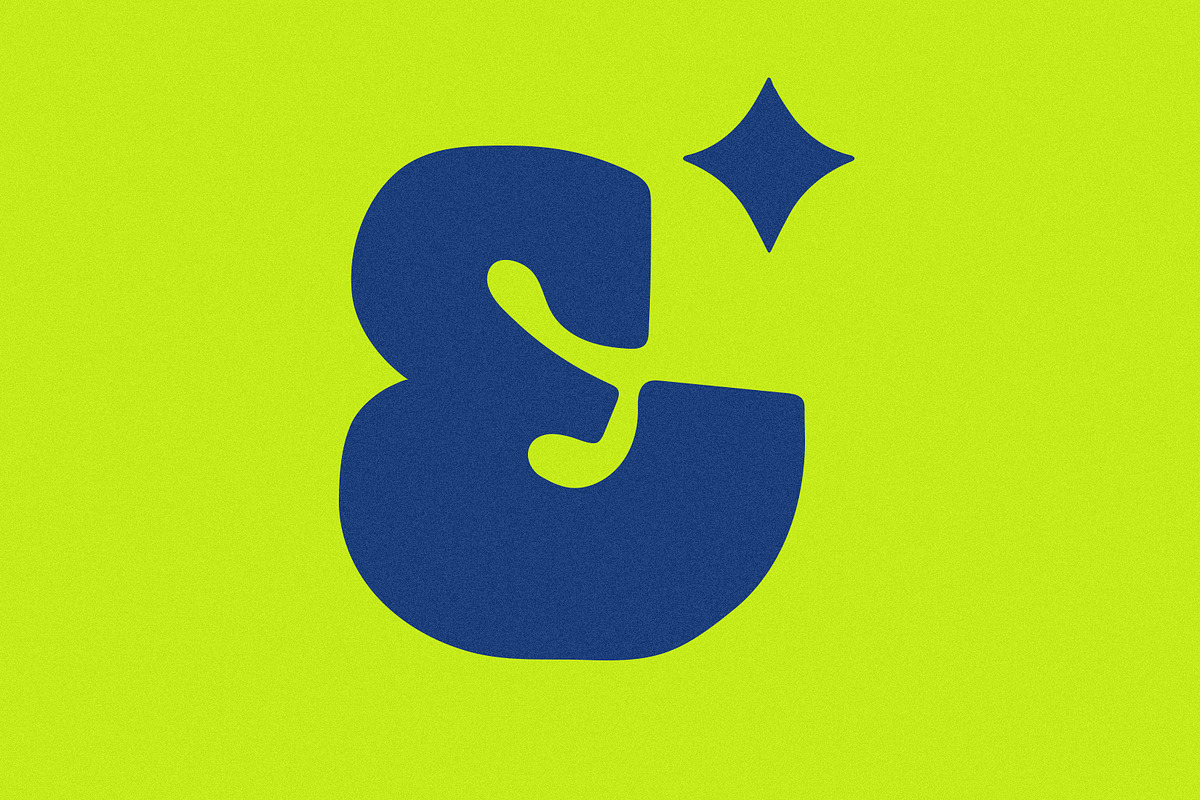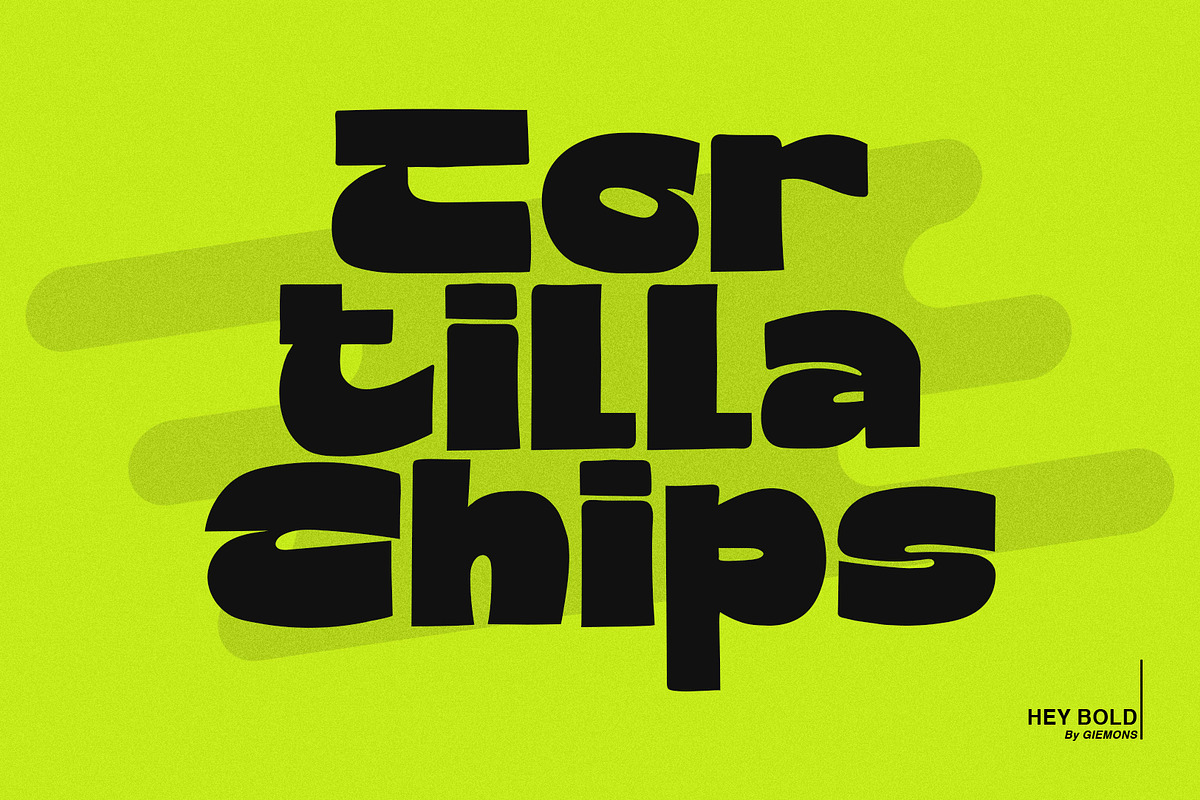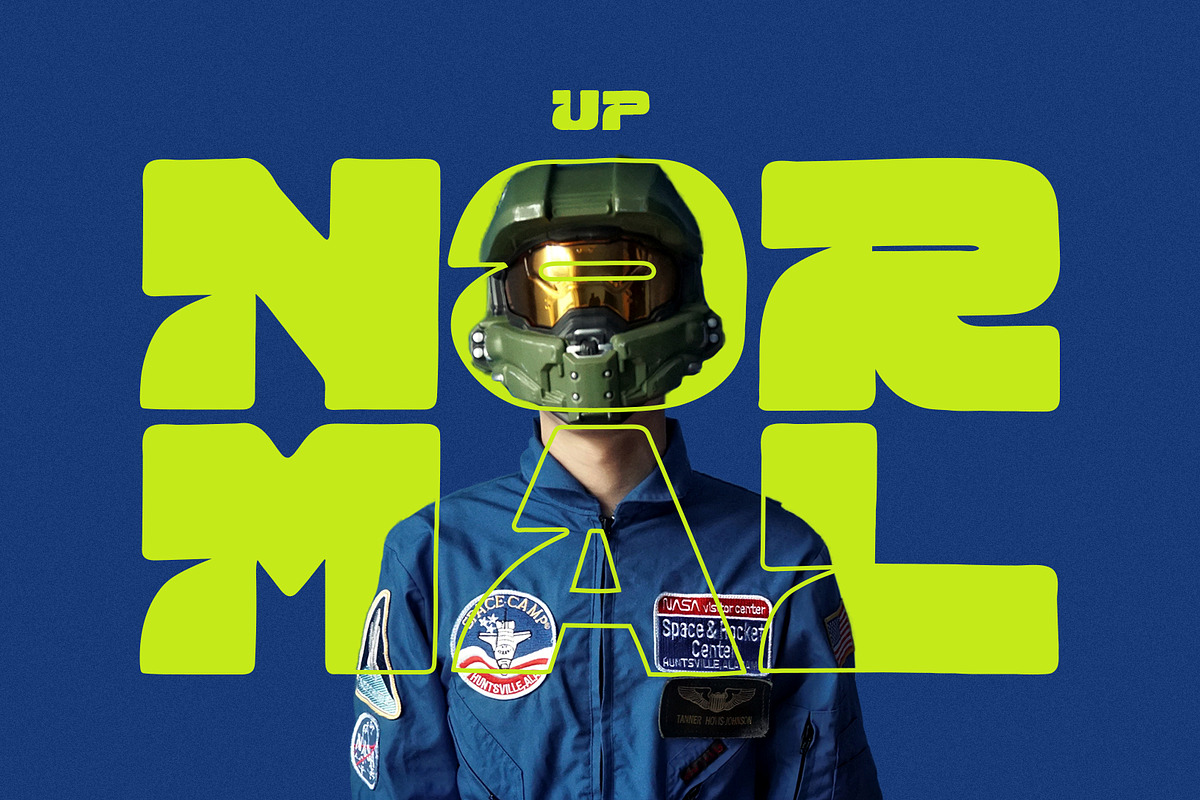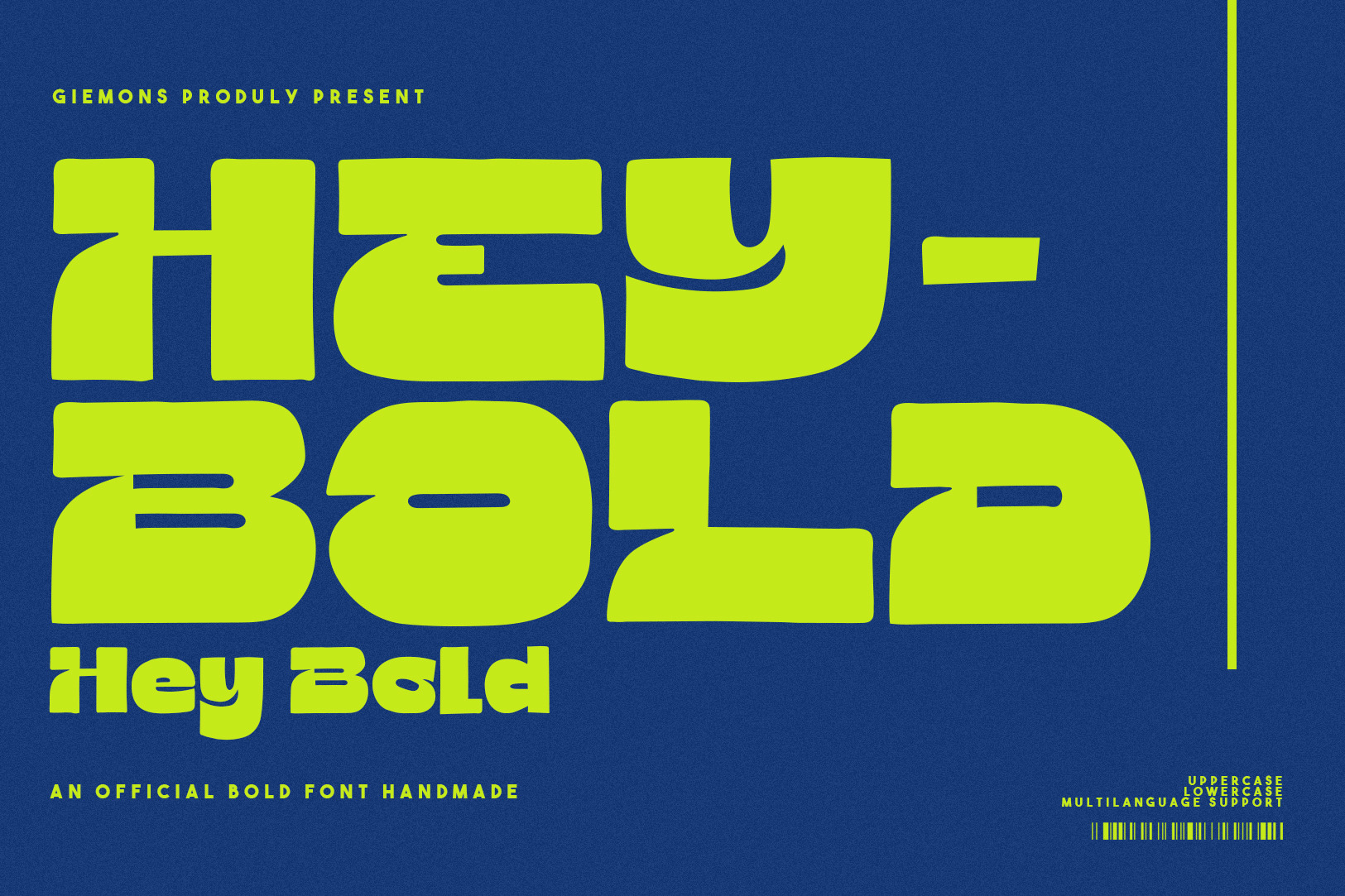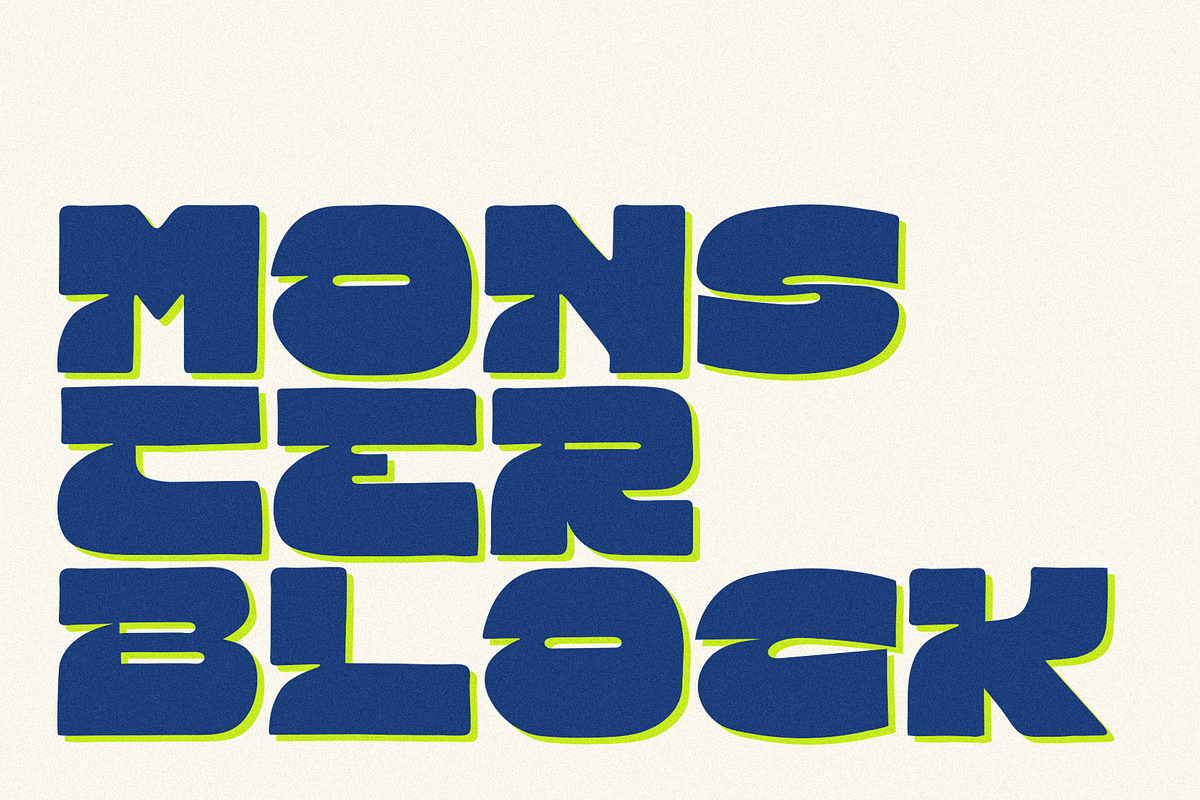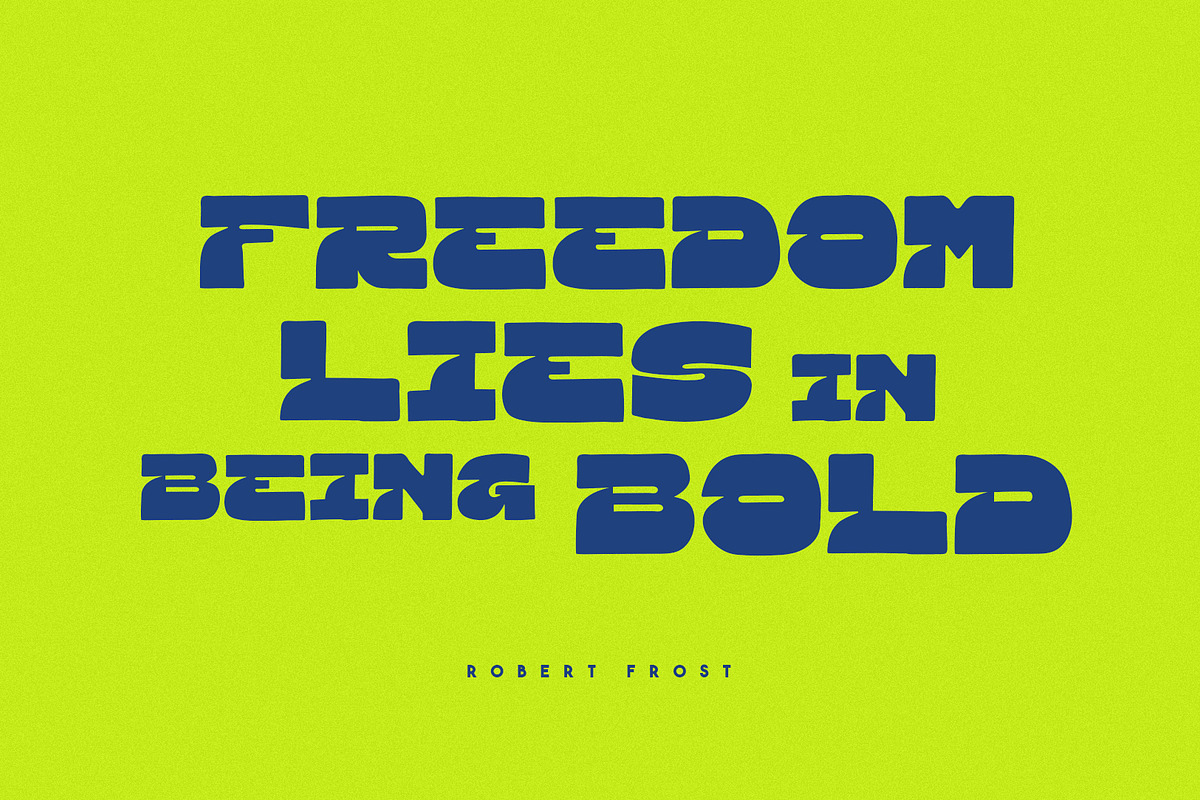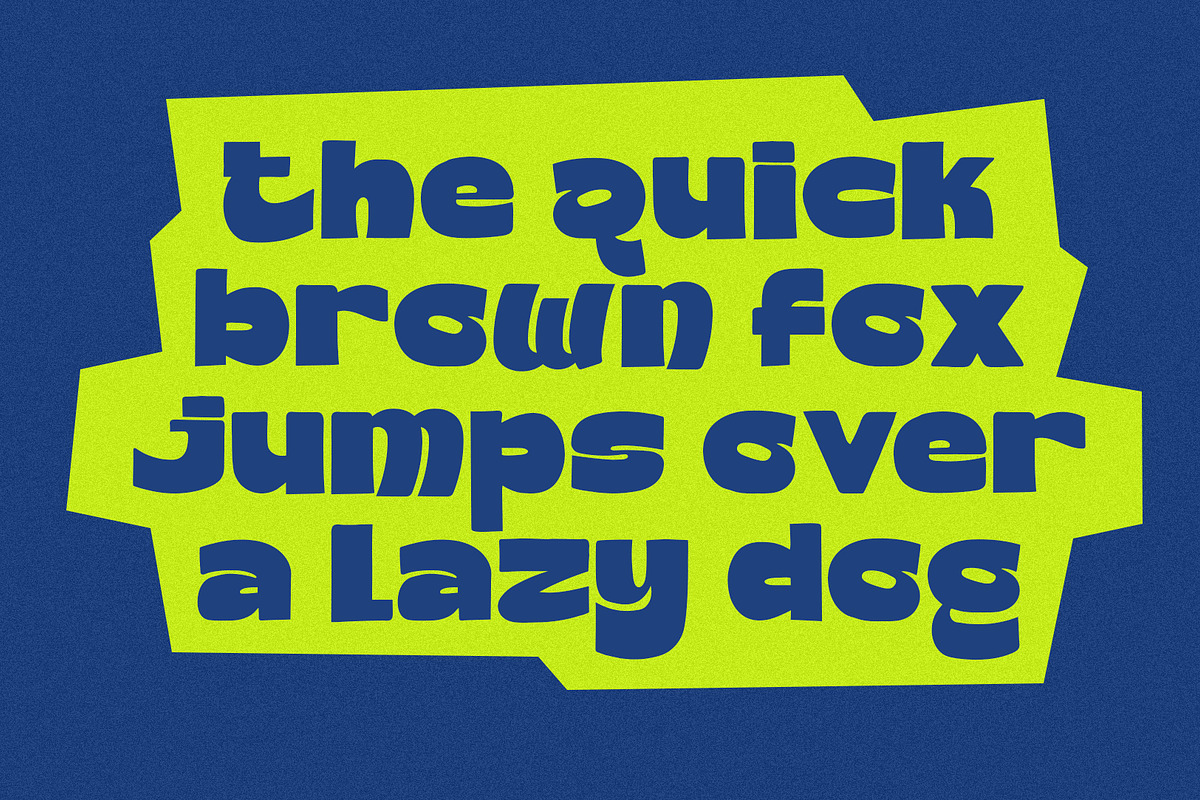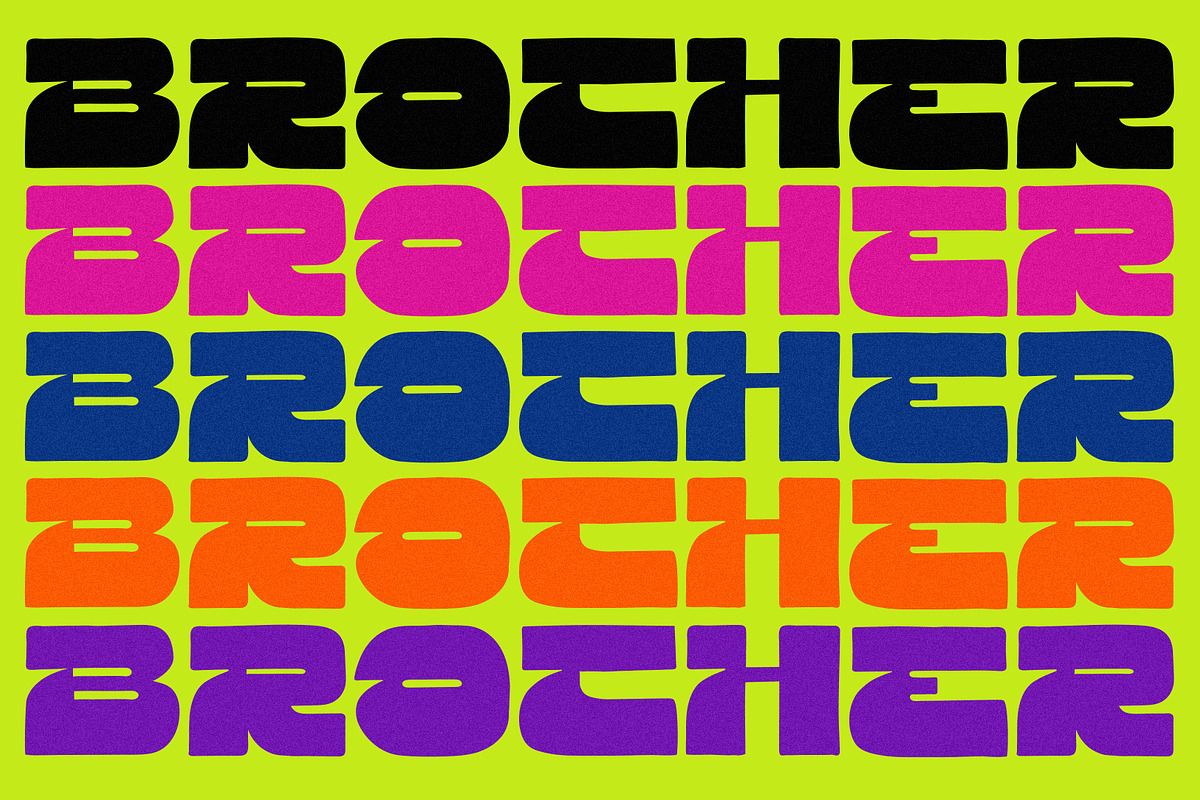
Hey Bold - Display Font
a HEY BOLD Font is Modern BOLD style. rough line, handmade make it natural, Use for awesome logos, headlines, posters and anymore with a touch of bubbly style.